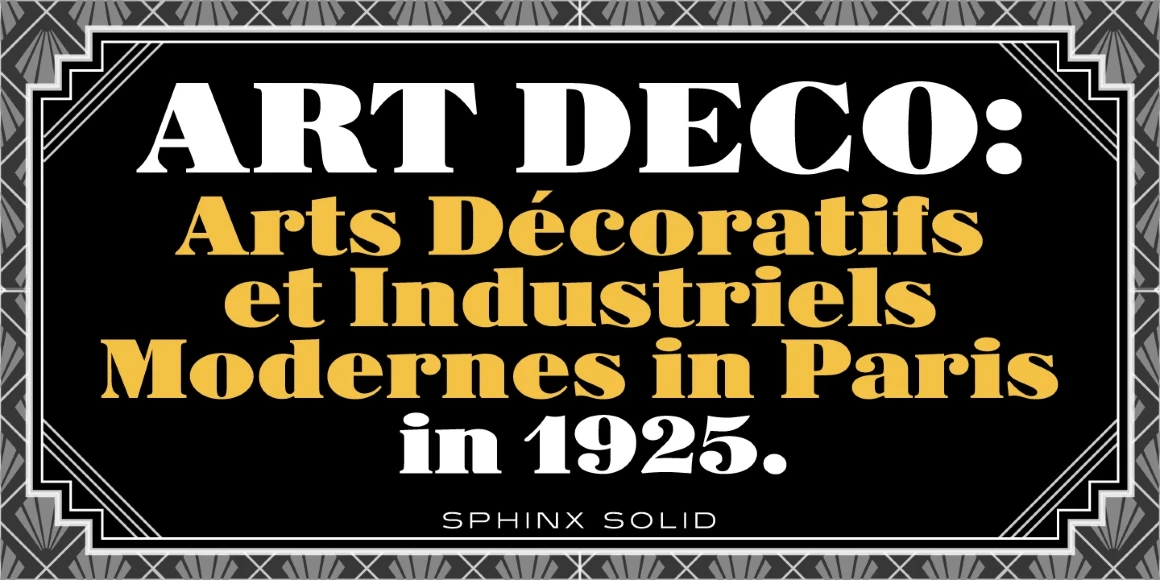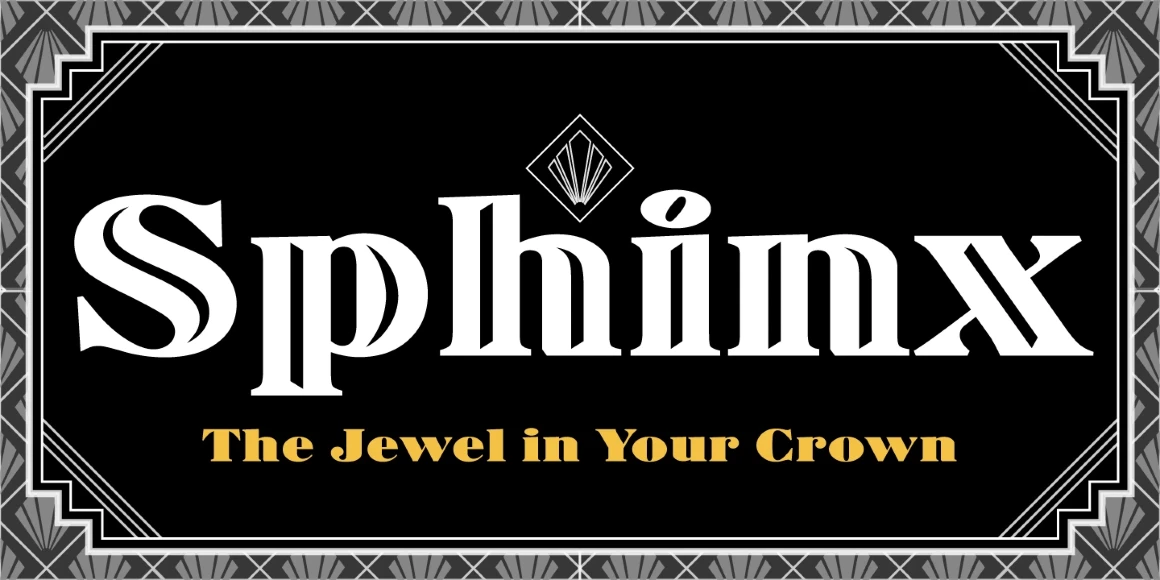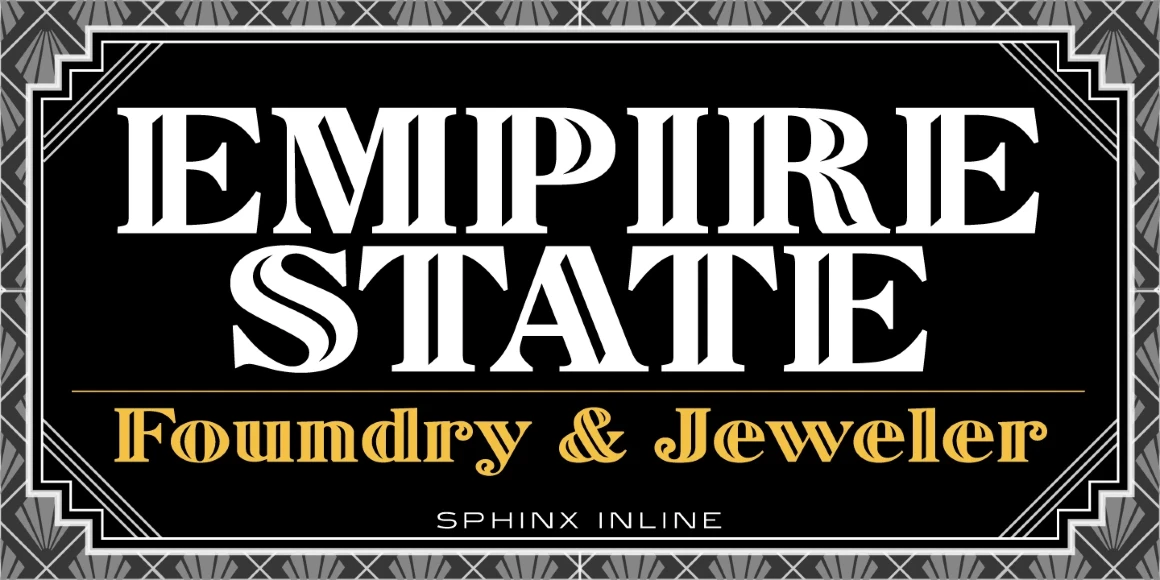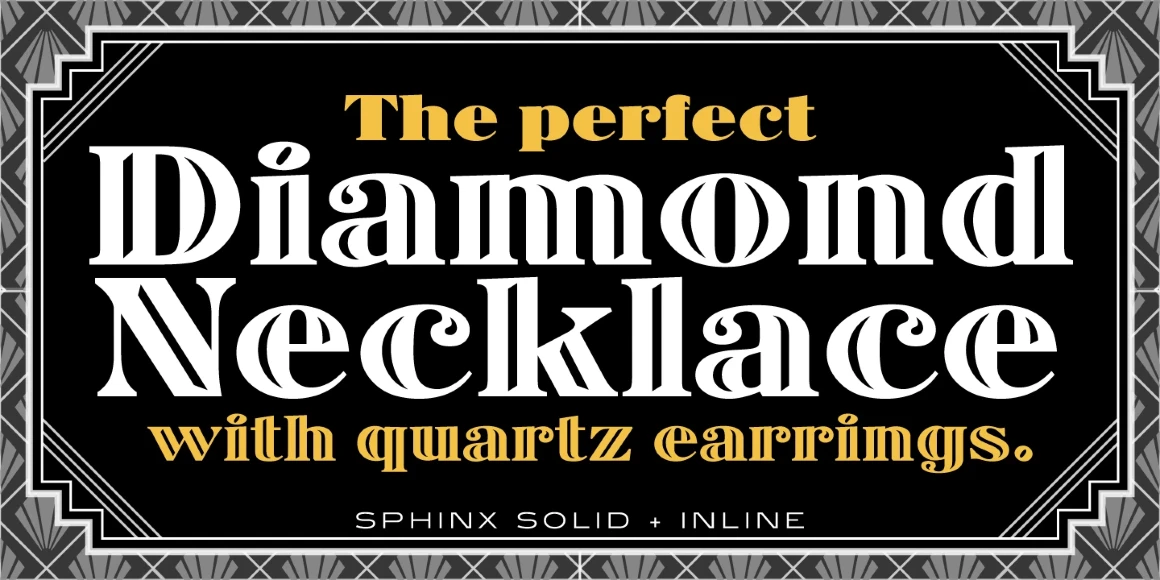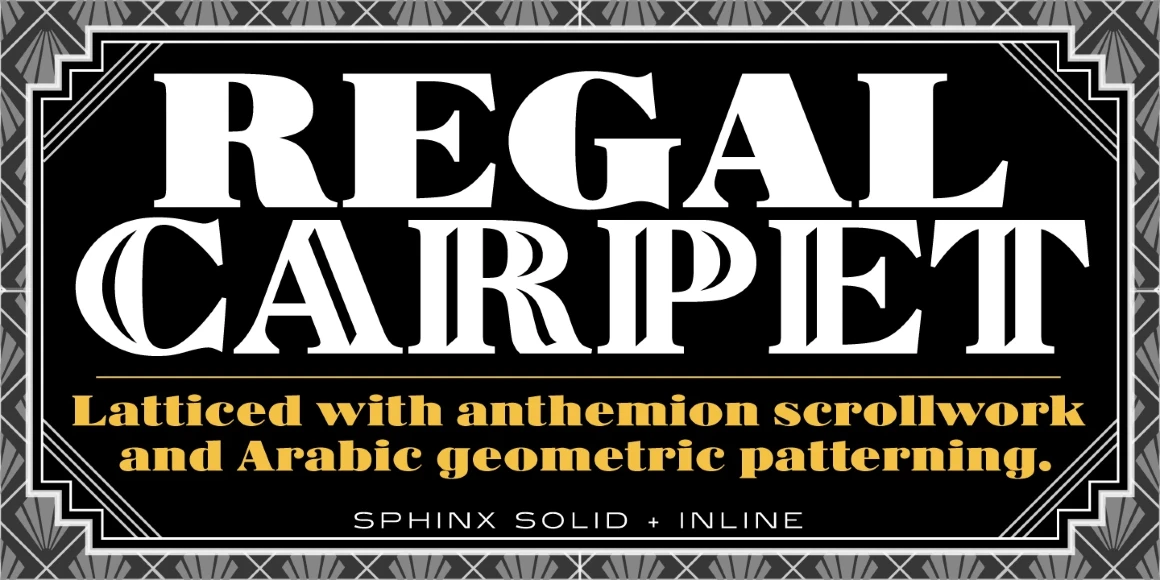
Sphinx
Sphinx Inline
Sphinx Solid
Sphinx is a decorative fat face serif font family, based on the original designs from the Deberny & Peignot foundry, circa 1925. Steve Jackaman (ITF) completely redrew the family, added a lowercase set to the inline weight, and produced digital versions in 1992. Sphinx has an imperial Art Deco feel, and the balls are attractively curled from the glyph tails. Sphinx gives visual heft to any project it is used in, and displays mightily in display and subhead sizes.